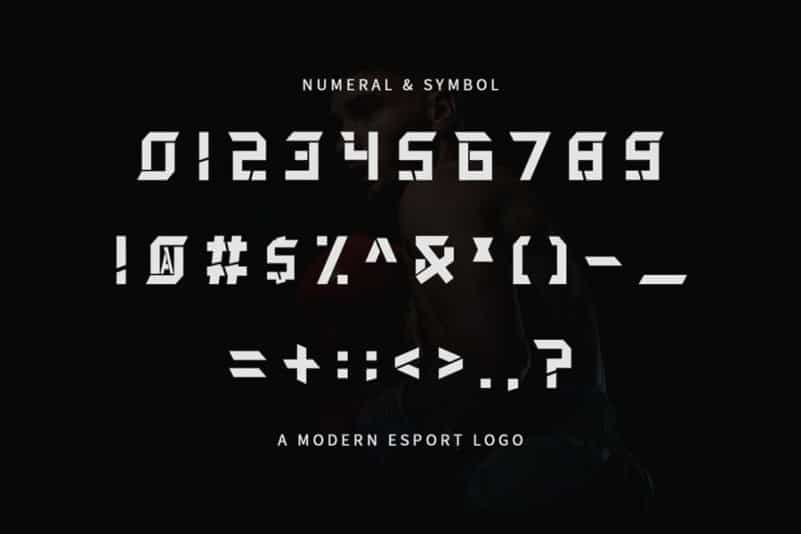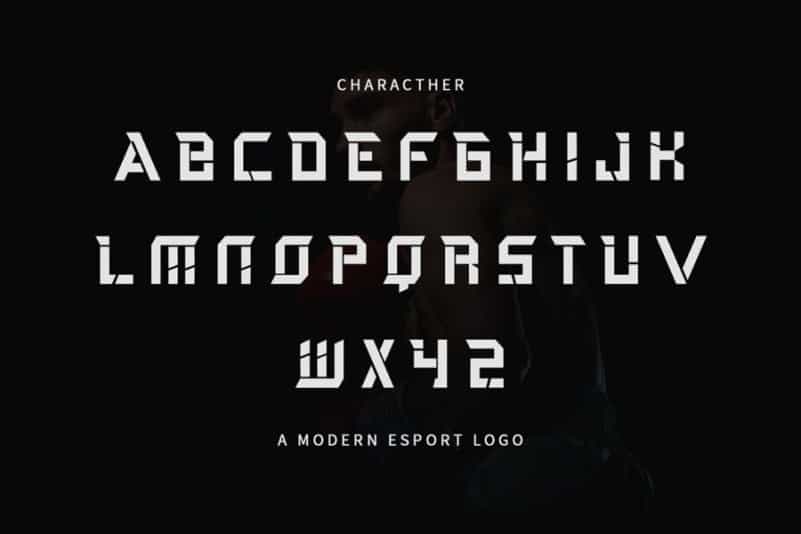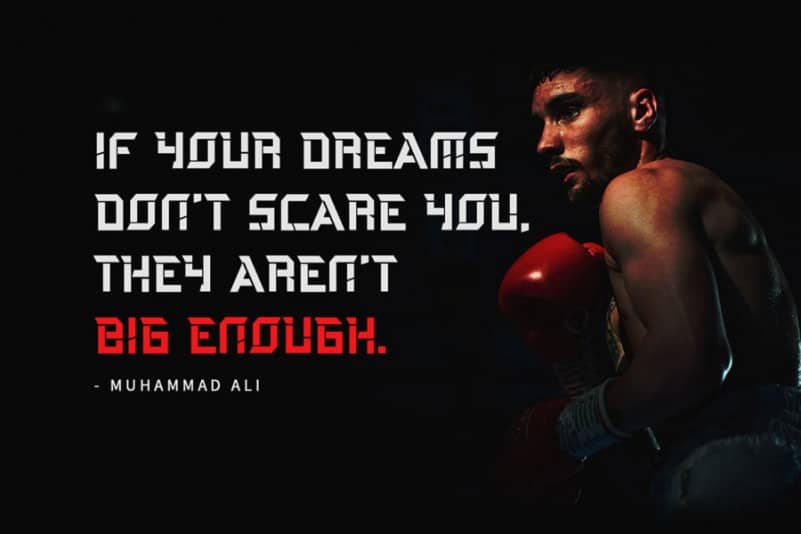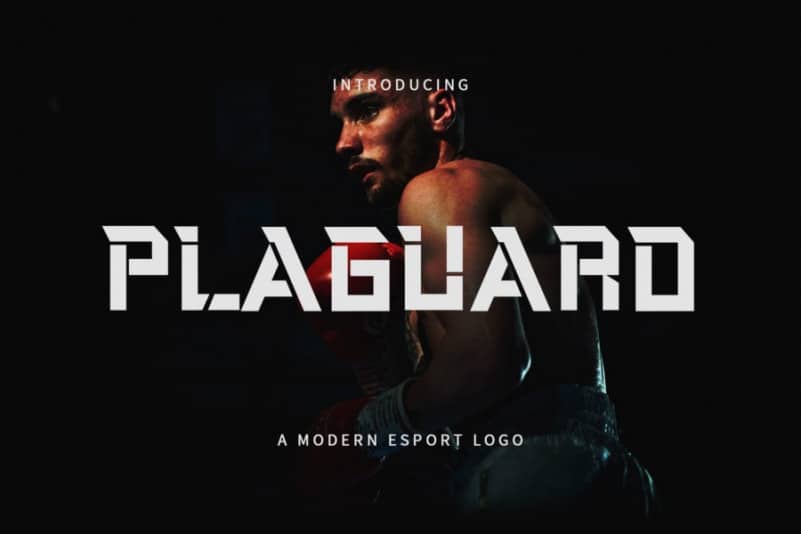
Plaguard Display Font
Plaguard Display Font is a pure headline font created by Rometheme with stylised caps for each. This font looks elegant, strong, rough, and easy to use. This font looks modern, cute, fancy, readable, stylish, catchy and easy to use. It’s a great font for fashion, apparel projects, signature, album cover, logo, branding, magazine, social media, & advertisements, but also works great for other projects.